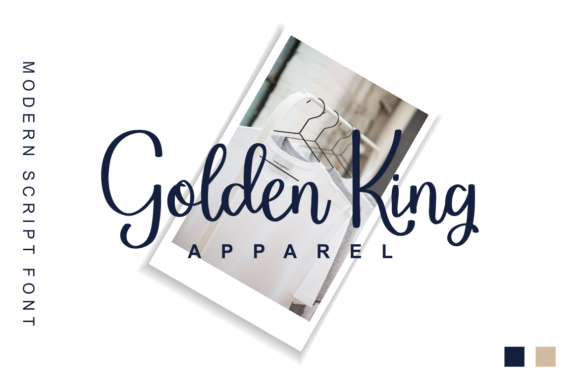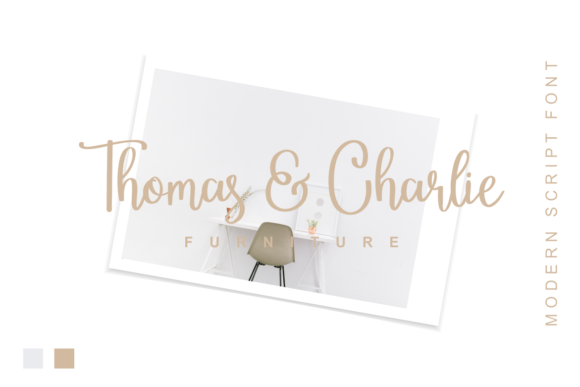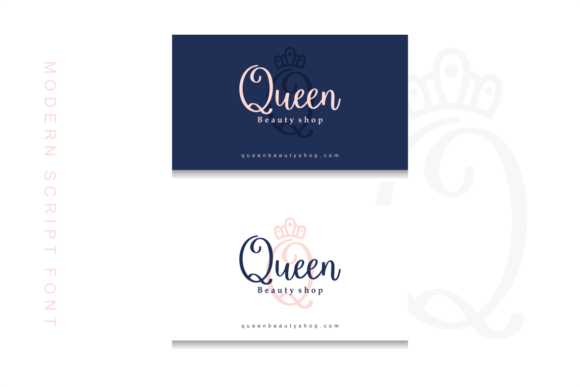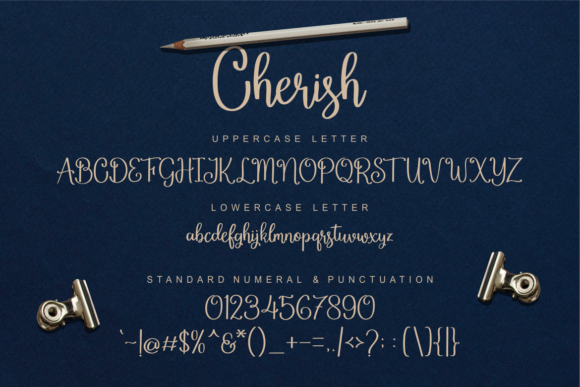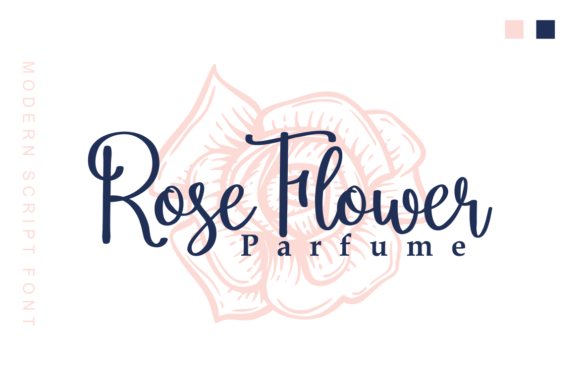
Introduction to Cherish Script Font
Have you ever been working on a creative project and suddenly, the perfect font pops into your mind, elevating the entire design? That’s exactly what happened to me when I stumbled upon the Cherish Script Font. Its elegant, modern, and natural feel is the perfect addition to any design project.
As a designer, I know how crucial it is to have a diverse collection of fonts to choose from. That’s why I’m excited to share this valuable resource with you – the Cherish Script Font. This free download is not only high quality but also versatile, making it suitable for logos, branding, magazines, posters, stationery designs, business cards, and more.
Key Features of Cherish Script Font
- High-quality, elegant script font perfect for creative projects and design resources.
- Features a transparent background, allowing for easy layering and customization in design software.
- Designed with a high level of detail and precision, resulting in a crisp and clear font at resolutions up to 300 DPI.
- Size: 1,012 glyphs, covering a wide range of languages and characters.
- Unique characteristics include swashes, flourishes, and connecting strokes, adding a touch of elegance and sophistication to any design.
Honest Review: Cherish Script Font
I recently had the chance to experiment with the Cherish Script Font, and I must say it’s been a delightful addition to my design resource library. The font is a beautiful, high-quality script that’s perfect for creative projects requiring a touch of elegance.
- ✨ Beautiful, handwritten script that’s great for titles and headings.
- ✨ Excellent for creative projects, such as invitations, weddings, and baby showers.
- ✨ Comes in a variety of weights and styles to suit your design needs.
- ⚠️ The font may not be suitable for large blocks of text, as it can be difficult to read.
- ⚠️ The transparent background option can sometimes be a bit tricky to work with.
Overall, I’m thoroughly impressed with the Cherish Script Font. It’s a high-quality design resource that’s perfect for adding a personal touch to your creative projects. If you’re looking for a beautiful, elegant script font, I’d definitely recommend giving this one a try.
Tips for Getting the Most Out of Cherish Script Font
To get the most out of the Cherish Script Font, use it in combination with other design elements, such as graphics and images. Experiment with different font sizes and colors to create a visually appealing design.
The Cherish Script Font is ideal for wedding invitations, birthday cards, and other creative projects that require a touch of elegance and sophistication. It’s also perfect for branding and logo design, adding a personal touch to your business identity.